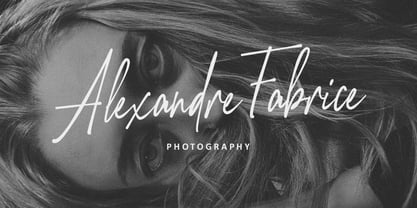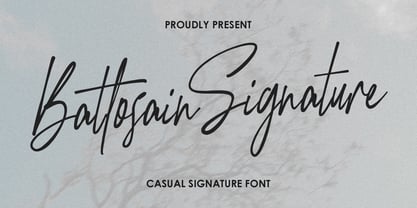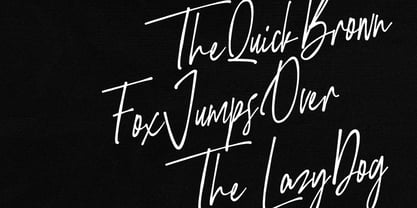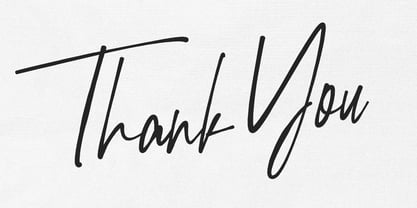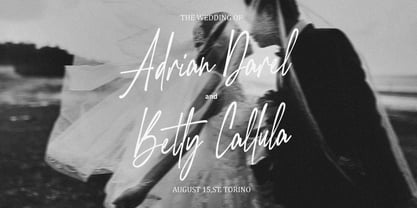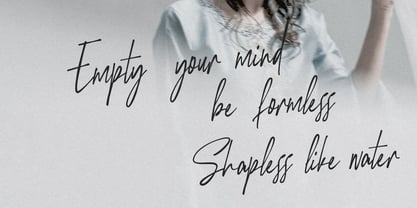
MC Battosain
by Maulana Creative
The MC Battosain Font Family was designed by Gilang Maulana and published by Maulana Creative. MC Battosain contains 1 styles. More about this family
Introducing Battosain Signature, the modern, handcrafted script font designed to infuse your projects with a touch of elegance and effortless charm. This casual signature font mimics the natural flow of authentic handwriting, making it the perfect choice for designers looking to create a genuinely human connection with their audience. Create memorable, aspirational brand marks that feel exclusive. Add a romantic, bespoke feel to your special announcements. Personalize your images with a chic, professional signature. Make your content stand out with stylish, eye-catching typography. Give your products a premium, artisanal look. Carefully crafted with varying line weights and an organic rhythm for a realistic handwritten feel. Includes all Uppercase and Lowercase letters, Numerals, and Punctuation. Includes a selection of stylistic ligatures to create stunning, professional-level text layouts that truly shine.
Designers: Gilang Maulana
Foundry: Maulana Creative